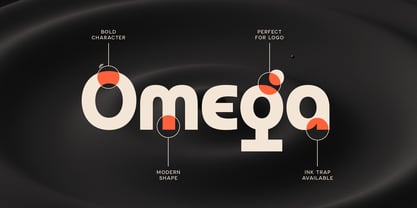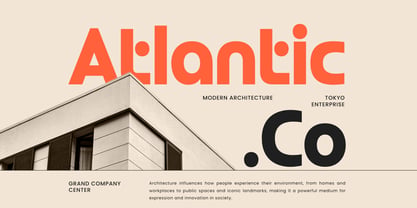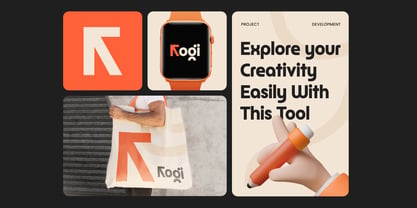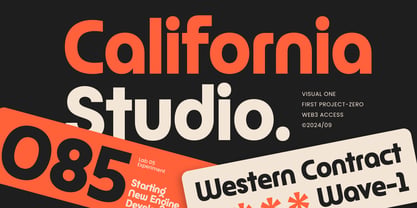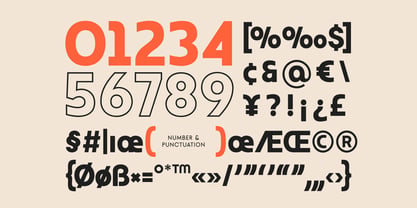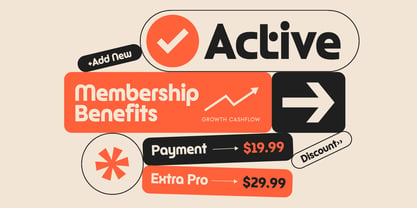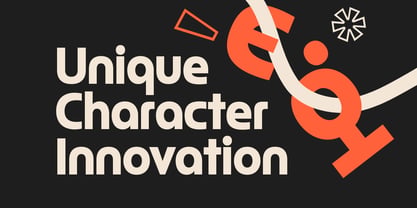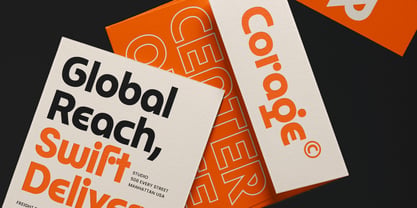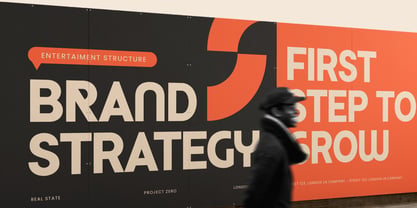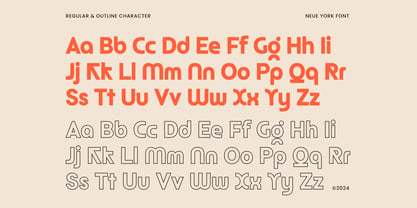
Neue York
by Sensatype Studio
The Neue York Font Family was designed by Zamroni Hamzah and published by Sensatype Studio. Neue York contains 2 styles and family package options. More about this family
Neue York - Modern Professional Font
Neue York is a modern professional font designed for sophisticated branding and high-end design projects. Its clean and elegant letterforms provide a contemporary yet timeless feel, making it perfect for logos, corporate materials, and professional presentations. This font embodies the essence of modern minimalism while maintaining a sense of luxury and refinement.
Inspired by the vibrant energy of the city it's named after, Neue York offers versatility and adaptability for various design applications. Whether you are crafting a corporate identity, designing sleek business cards, or working on editorial content, this font ensures your work exudes professionalism and style.
Ideal for branding, business logos, websites, and more, Neue York’s refined design effortlessly elevates your project, helping you communicate a polished and modern aesthetic that leaves a lasting impression.
Neue York Modern Professional Font Features:
• Any Alternative Characters Ready
• Available in Regular & Outline Style
• Punctuation, Number, and Symbol
• Uppercase and Lowercase
• Opentype Features
Multilingual Characters available for:
Afrikaans, Albanian, Asu, Basque, Bemba, Bena, Breton, Chiga, Cornish, Dutch, English, Estonian, Filipino, Finnish, Friulian, Galician, German, Gusii, Indonesian, Irish, Italian, Kabuverdianu, Kalenjin, Kinyarwanda, Luo, Luxembourgish, Luyia, Machame, Makhuwa-Meetto, Makonde, Malagasy, Manx, Morisyen, North Ndebele, Nyankole, Oromo, Portuguese, Quechua, Romansh, Rombo, Rundi, Rwa, Samburu, Sango, Sangu, Scottish Gaelic, Sena, Shambala, Shona, Soga, Somali, Spanish, Swahili, Swedish, Swiss.